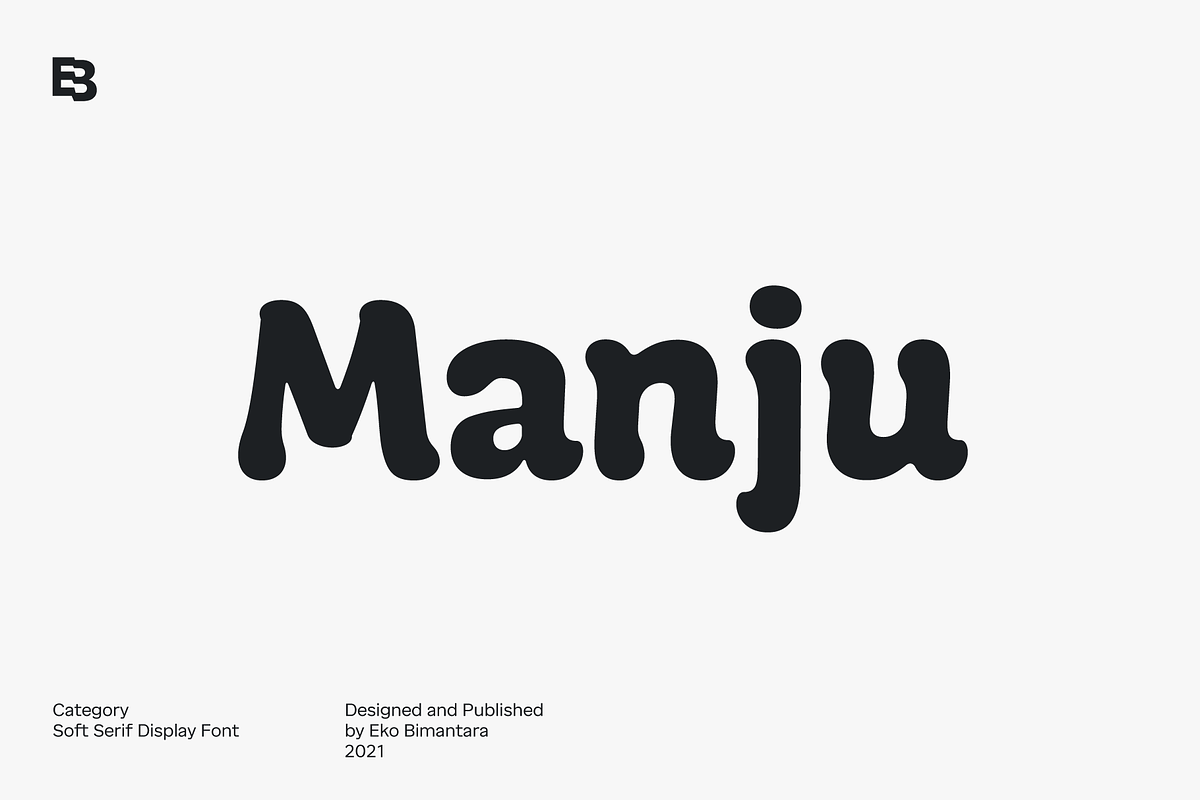
Manju; Retro Soft Display Font Free Download is a charming and bold typeface designed with a soft, retro aesthetic that evokes the vibes of the '70s and '80s. Featuring smooth curves and playful letterforms, this font is perfect for creating eye-catching headlines, logos, posters, social media graphics, and any design that needs a fun, vintage touch.
The rounded edges and friendly appearance make Manju ideal for projects that want to evoke nostalgia, warmth, and a sense of fun. Whether you're designing a retro-themed event, branding a lifestyle product, or creating promotional materials, Manju adds personality and flair to your typography.